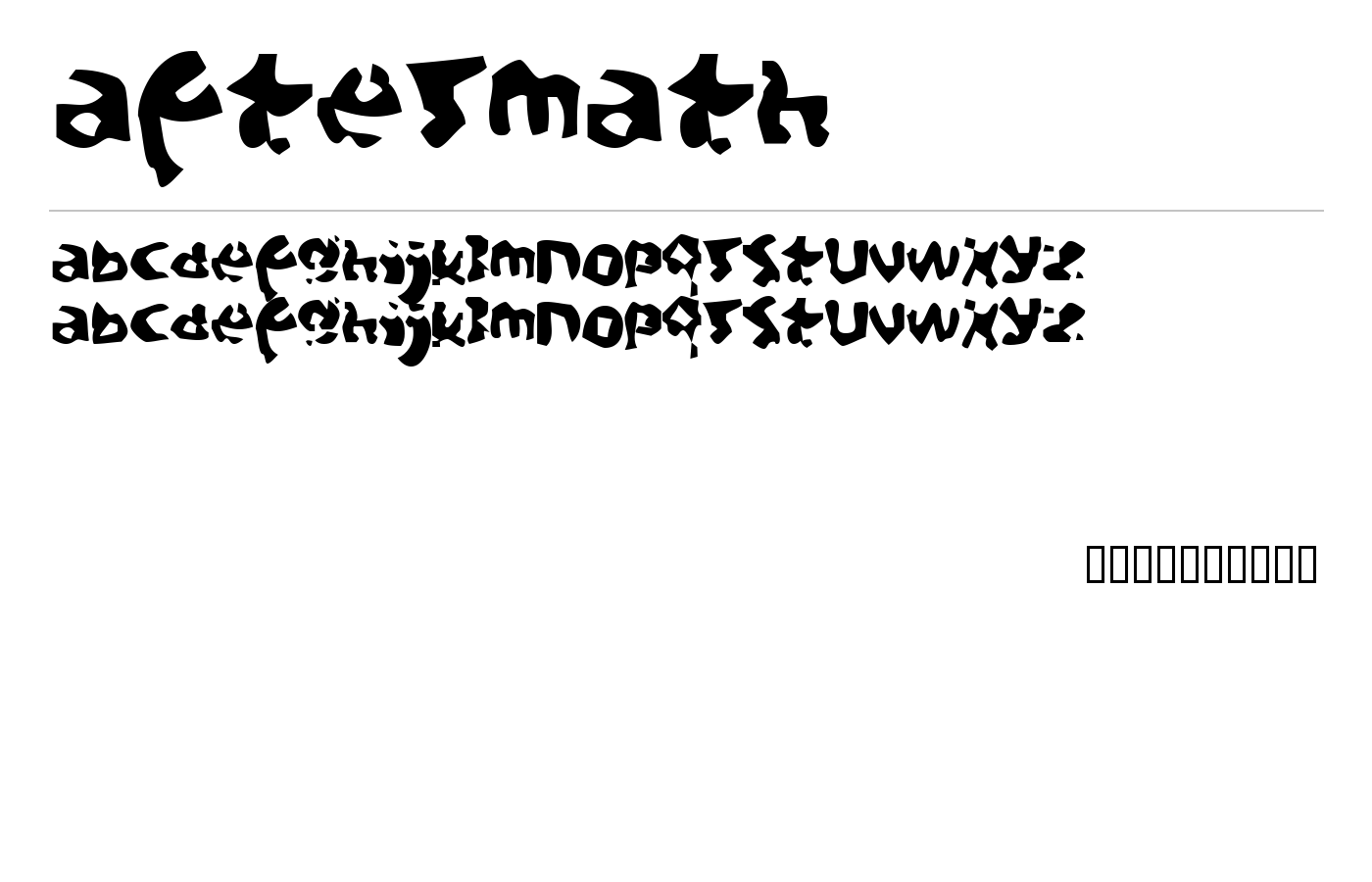
Aftermath is a bold, hand-drawn display font with an irregular, organic style that feels raw and expressive. Its uneven strokes and quirky letter shapes give it a playful, almost chaotic personality, making it perfect for artistic and edgy design projects that seek to stand out with a unique, informal vibe. This font works well for posters, logos, and creative branding where a bold, distinctive look is desired.
Aftermath Font